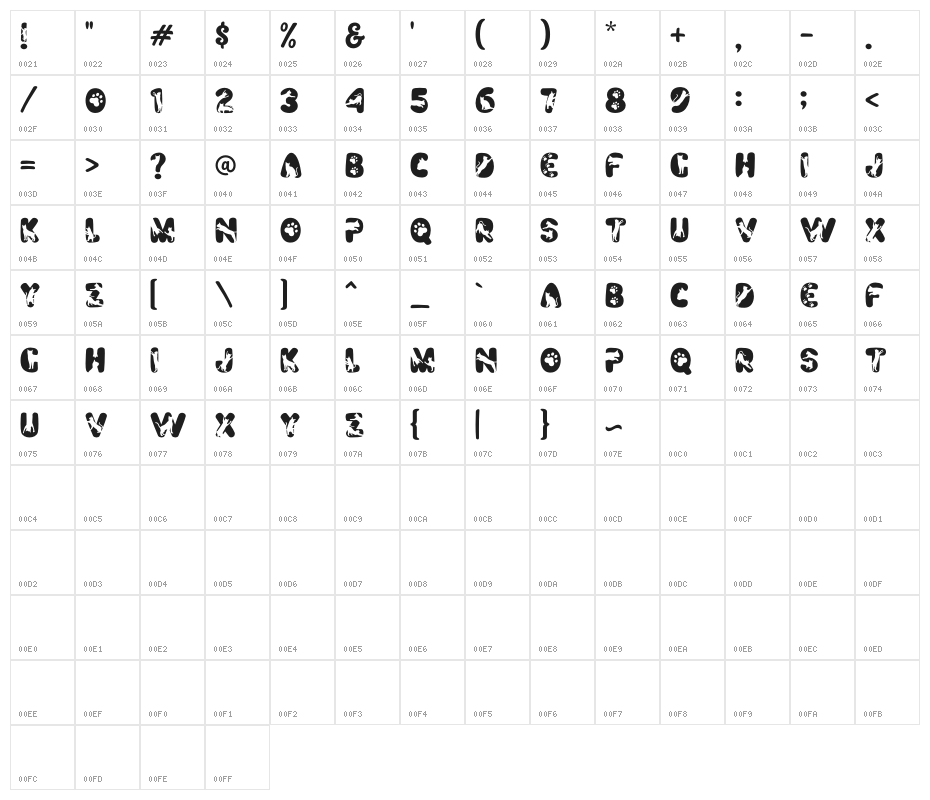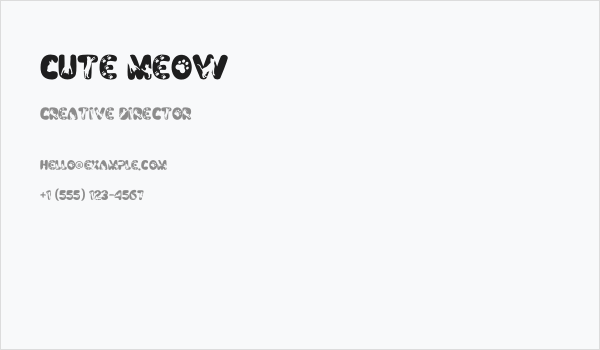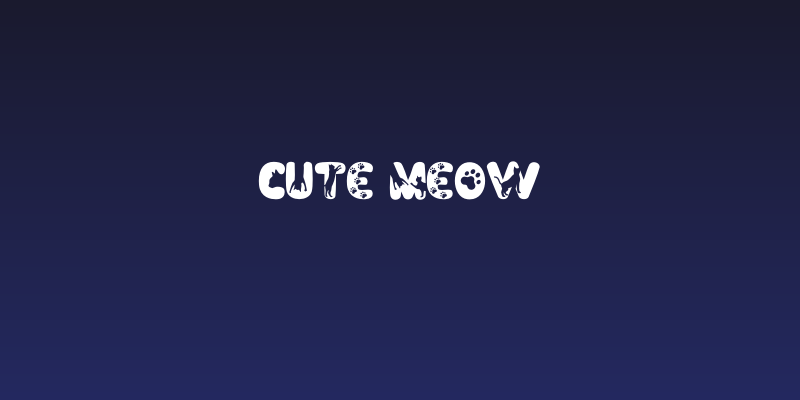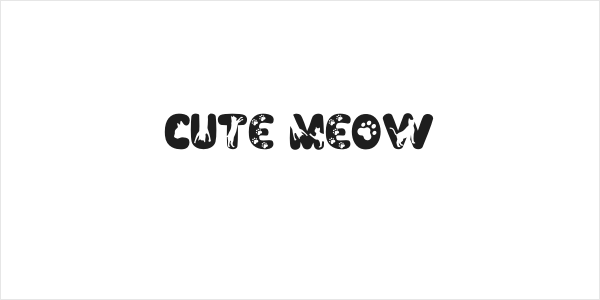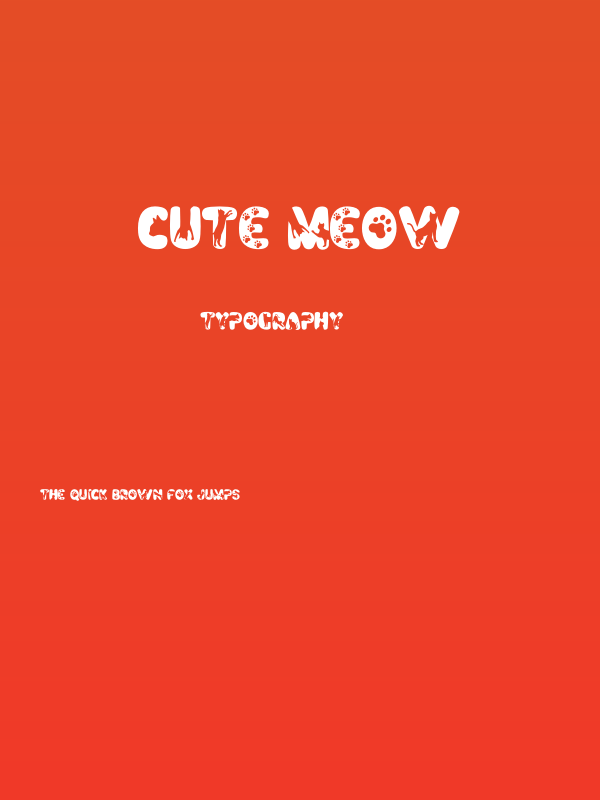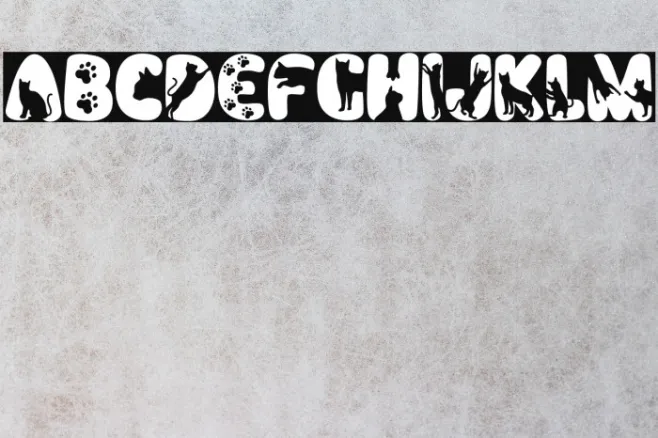
Cute Meow Font
Cute Meow Description
This playful and whimsical font features bold, rounded characters with charming cat-themed elements integrated into each letter and number. The design includes silhouettes of cats, paw prints, and tails, adding a unique and fun touch to the typography. The characters are well-spaced, ensuring readability while maintaining a decorative appeal. This font is perfect for projects that require a lighthearted and creative aesthetic, making it ideal for children's materials, pet-related branding, or playful event invitations.
| Overall Style | Playful, Whimsical, Decorative |
| Proposed Projects | Ideal for children's books, pet store branding, playful event invitations, and whimsical graphic designs. |